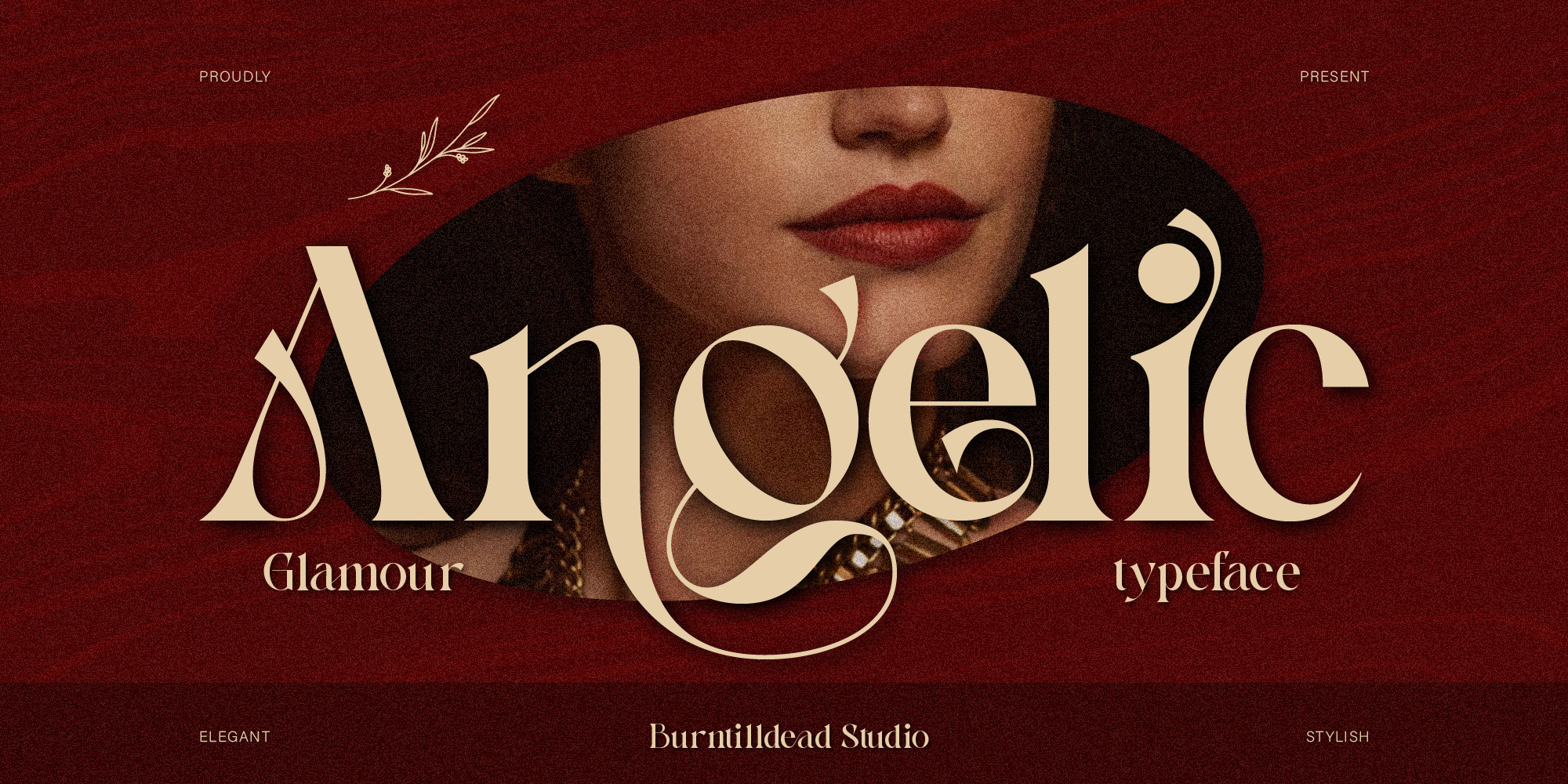
Angelic Font is perfect for spiritual retreat centers, heavenly wedding invitations, religious publication materials, meditation center branding, sacred music album covers, inspirational greeting cards, church signage projects, wellness sanctuary identity, and divine lifestyle campaigns. This ethereal typeface brings celestial grace and spiritual elegance to both digital and print design applications.
Angelic Font is exciting because it captures the pure essence of divine beauty and heavenly grace, making it an exceptional choice for designers who want to convey spiritual transcendence with authentic celestial inspiration. Its flowing letterforms and graceful ascenders provide the perfect combination of heavenly elegance and earthly functionality, ensuring your projects communicate peace, purity, and divine sophistication that resonates with souls seeking spiritual connection and transcendent beauty.
The Angelic Font family includes celestial weight variations and spiritual elements, featuring light, regular, and medium weights with complementary decorative flourishes, heavenly swashes, and divine ornamental details. Each style maintains consistent ethereal aesthetics while offering flexibility for different spiritual and inspirational applications, allowing designers to create harmonious brand systems that reflect celestial beauty and spiritual refinement.
Whether you're designing for spiritual organizations, wellness brands, or inspirational projects, Angelic Font Free Download delivers authentic heavenly appeal and divine sophistication that connects with audiences seeking spiritual elevation and transcendent experiences. This premium typeface offers designers the celestial grace and spiritual elegance needed to create designs that communicate divine inspiration, peaceful serenity, and heavenly excellence effectively. The font's ethereal character makes it perfect for spiritual branding, inspirational materials, and sacred applications where celestial authenticity is essential. Download Angelic Font today and bless your creative projects with genuine divine sophistication and heavenly typography excellence that defines spiritual design.